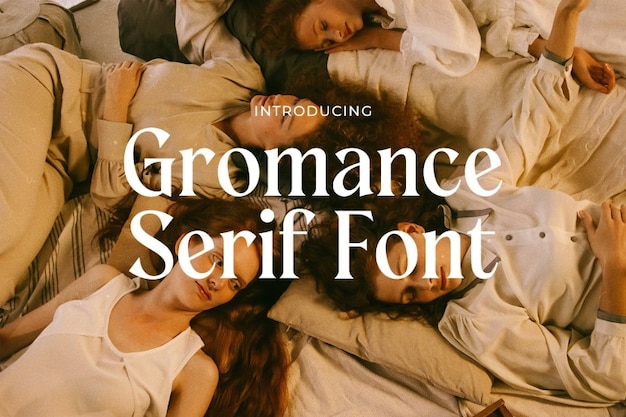
Gromance Font
Gromance is a font that epitomizes modern elegance and style. With its sleek and stylish design, it seamlessly blends contemporary aesthetics with timeless charm. It's the perfect choice for a wide range of creative projects, from branding to editorial layouts, where it effortlessly adds a touch of sophistication and grace to your text. Gromance captures the essence of modern design, making it an ideal option for those who appreciate the power of stylish and elegant typography.